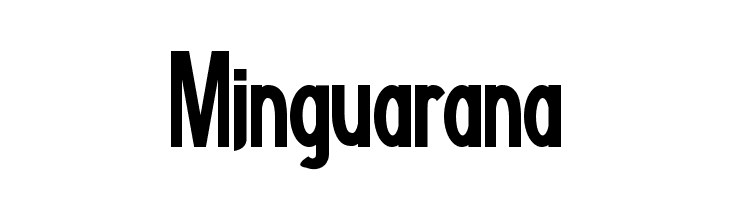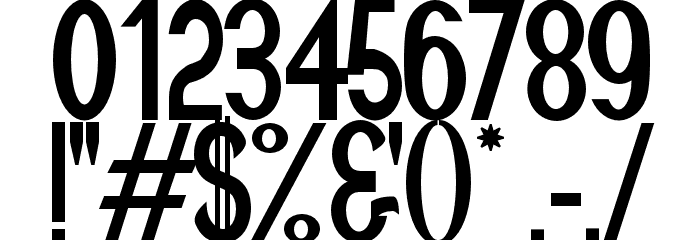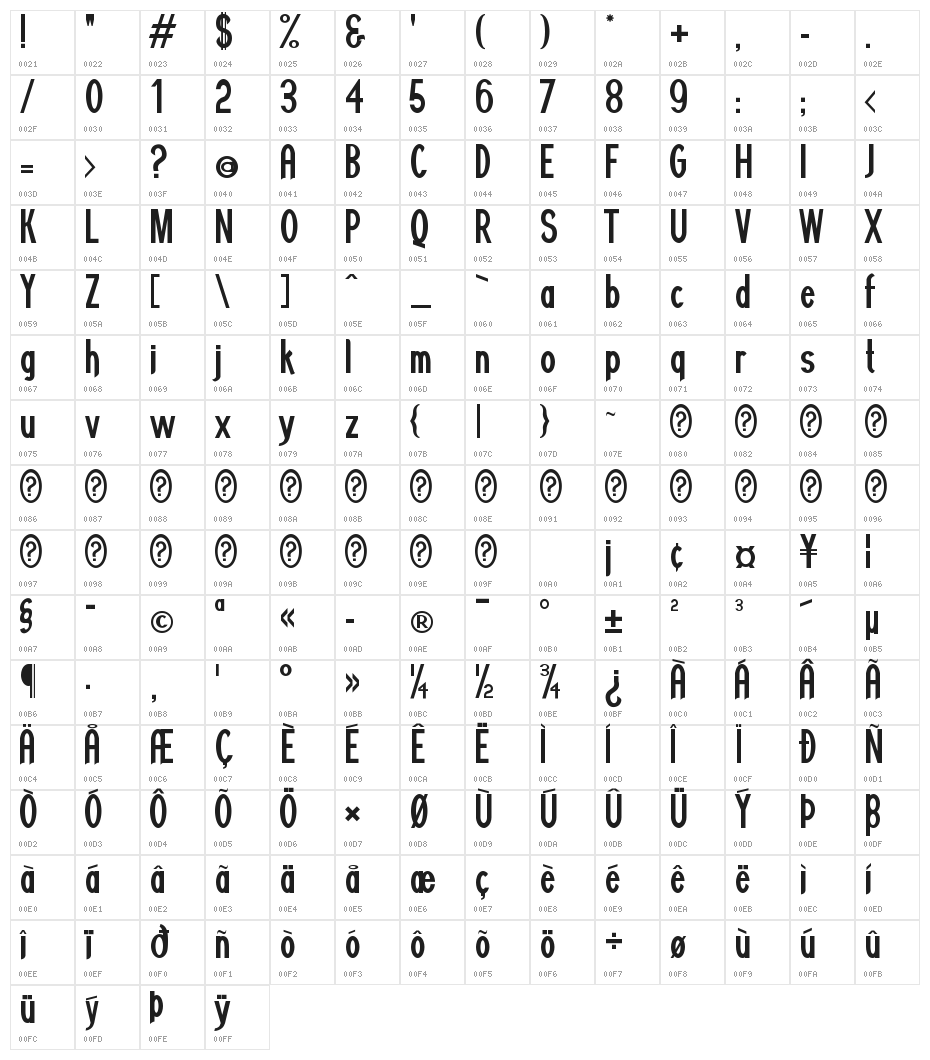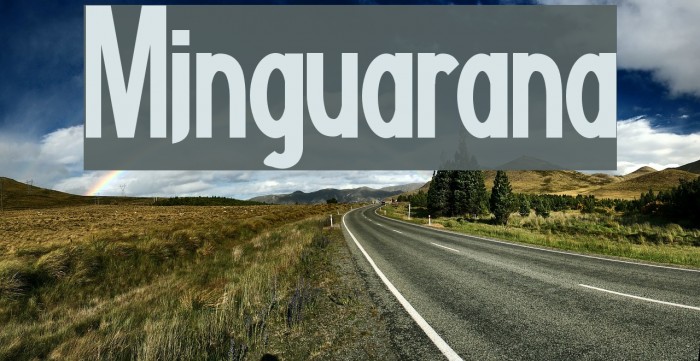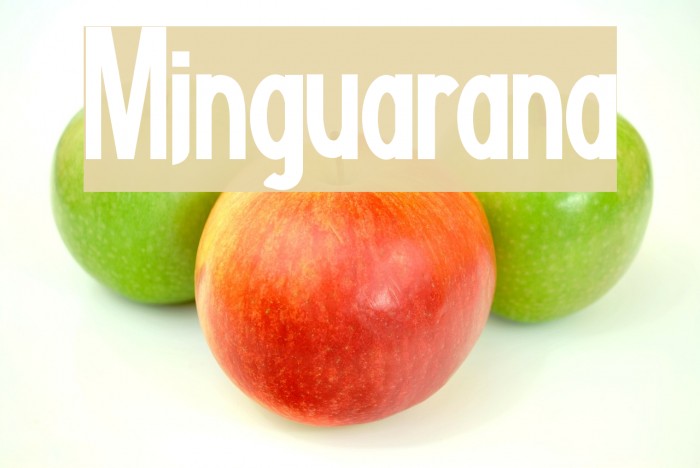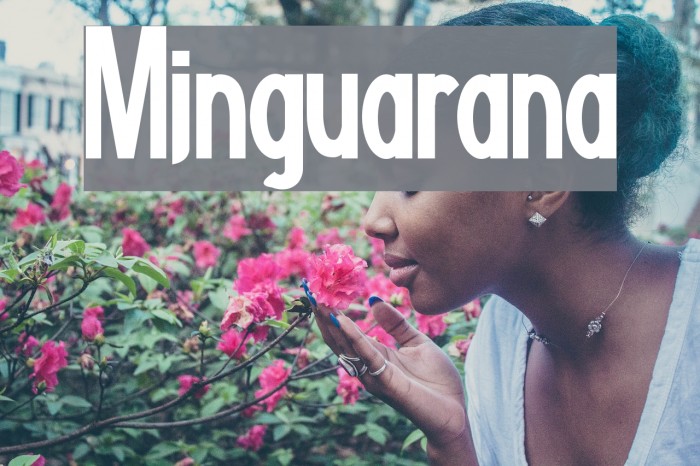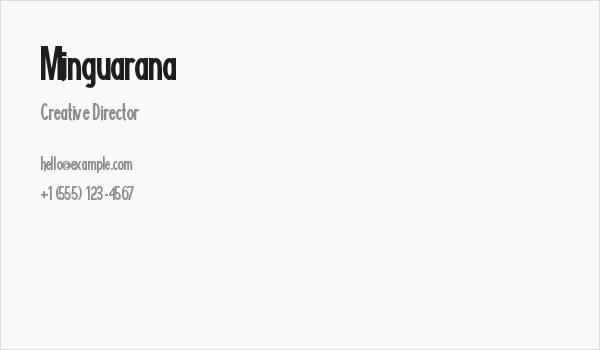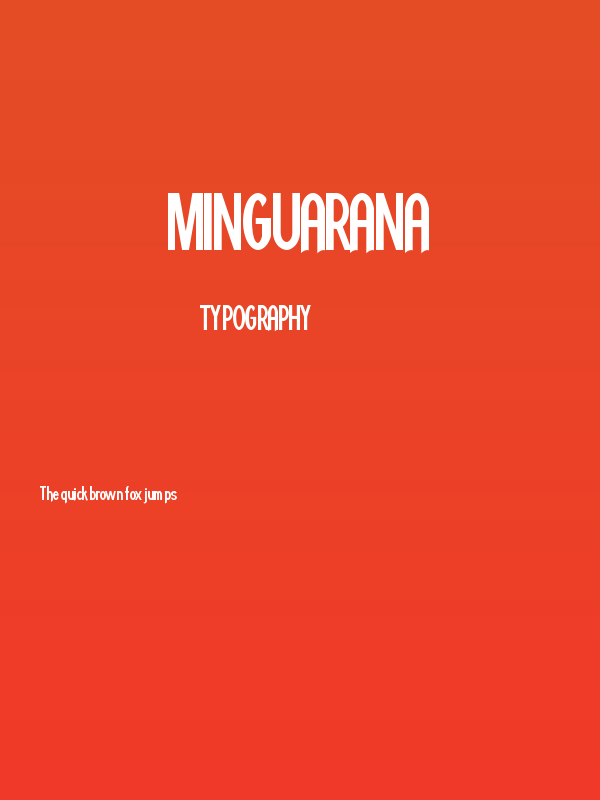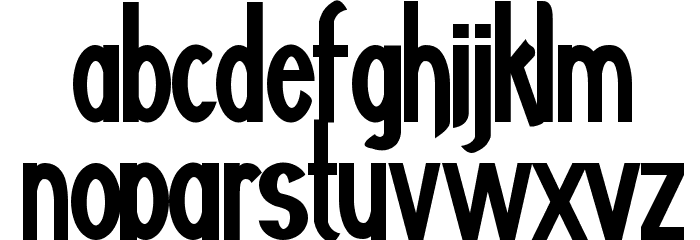
Minguarana Font
Minguarana Description
This font features a bold and striking design with tall, narrow characters that convey a sense of modernity and elegance. The uppercase letters are particularly elongated, giving a dramatic and impactful appearance. The lowercase letters maintain a consistent style, complementing the uppercase with a slightly more rounded form. The numerals are clear and distinct, ensuring readability. Special characters are designed to match the overall aesthetic, providing a cohesive look across all elements. The font's high contrast in stroke thickness adds to its bold presence, making it ideal for attention-grabbing designs.
| Proposed Projects | Ideal for headlines, posters, branding, and advertising where a strong visual impact is desired. |